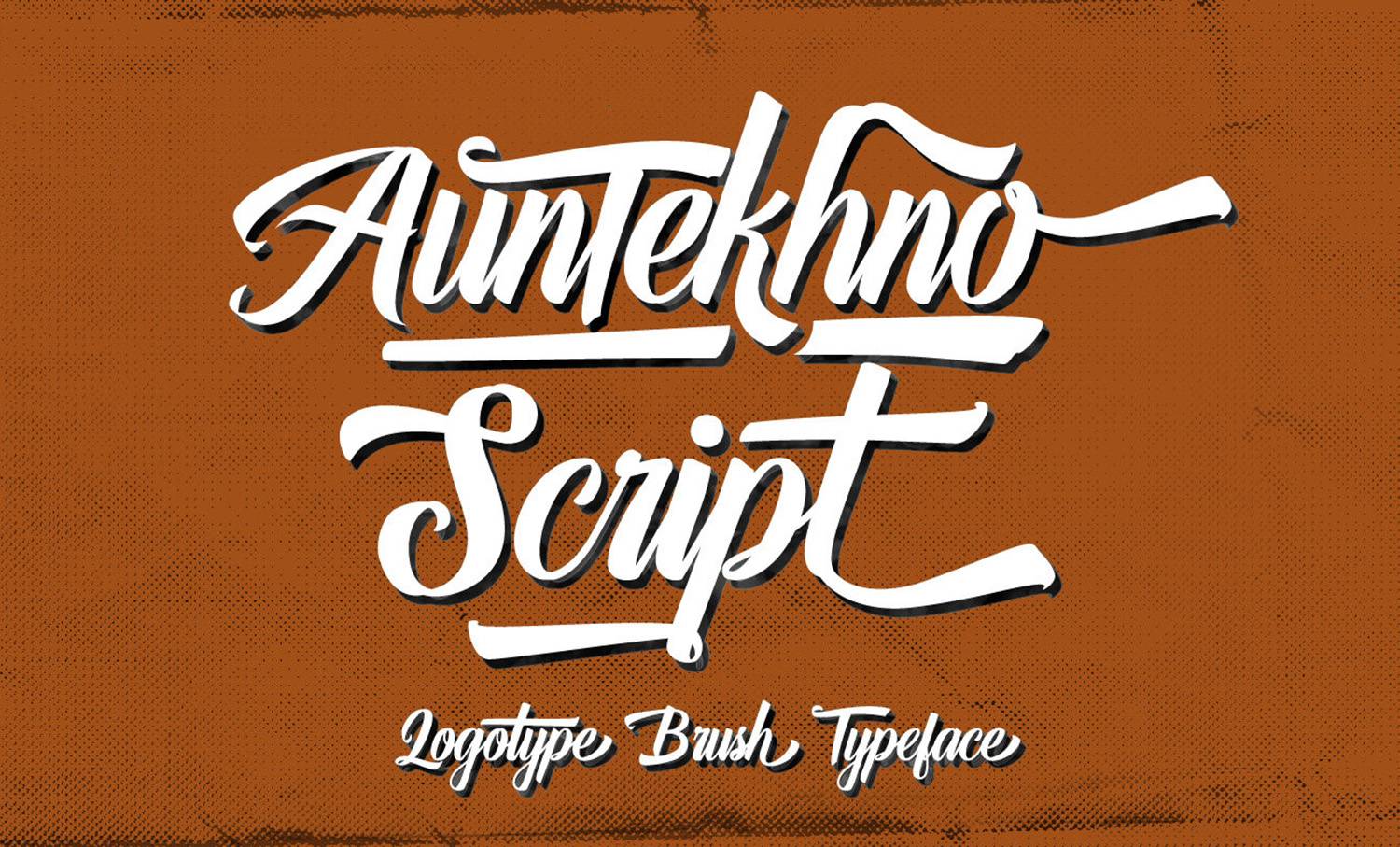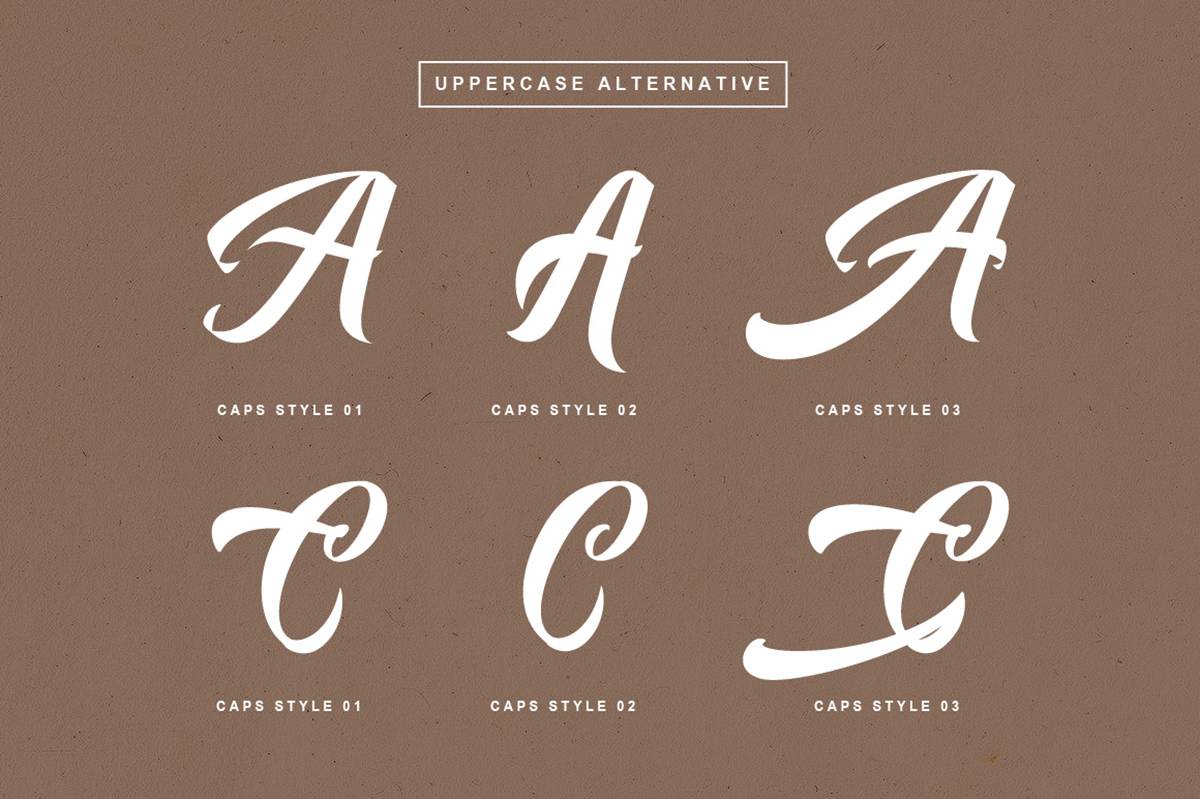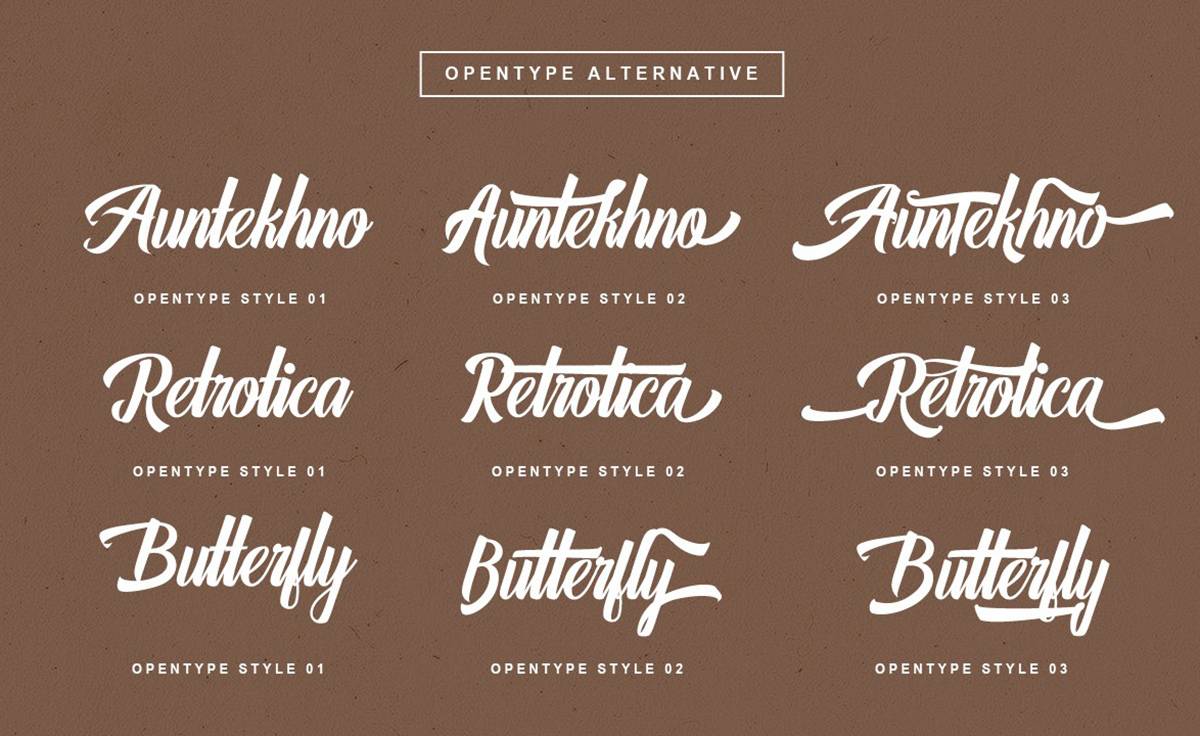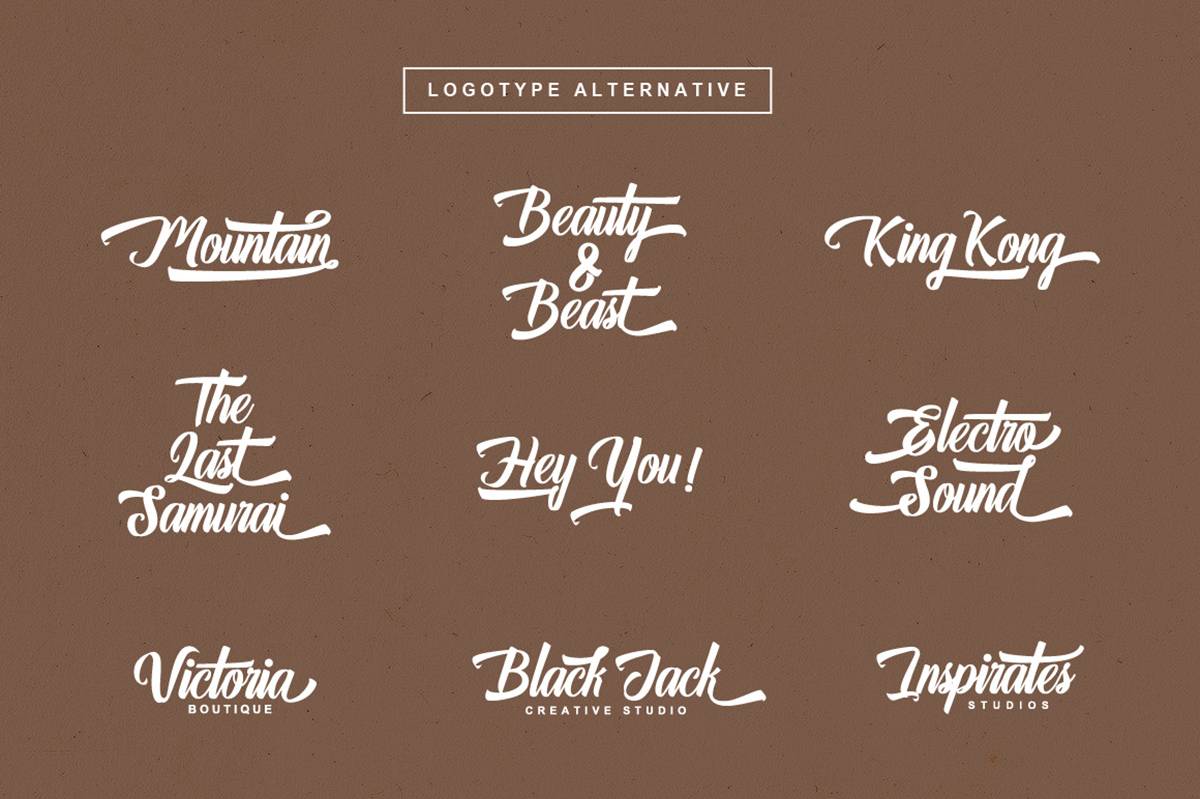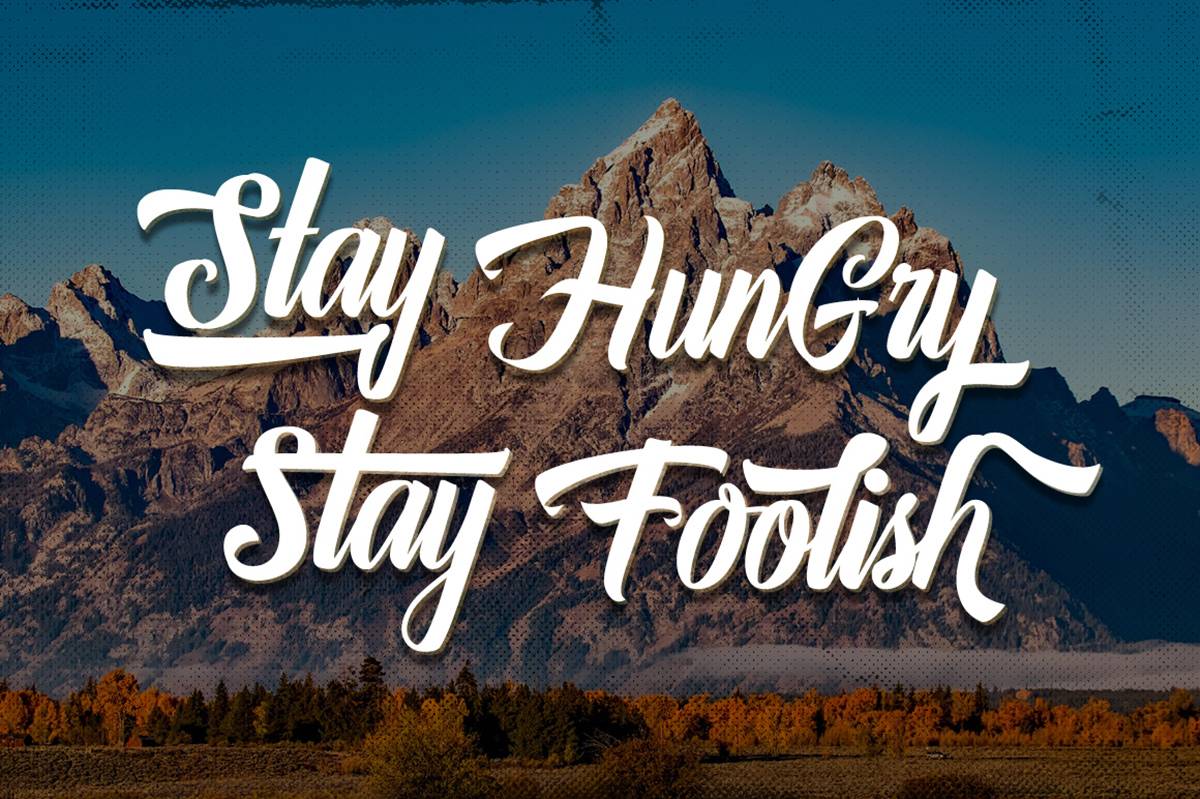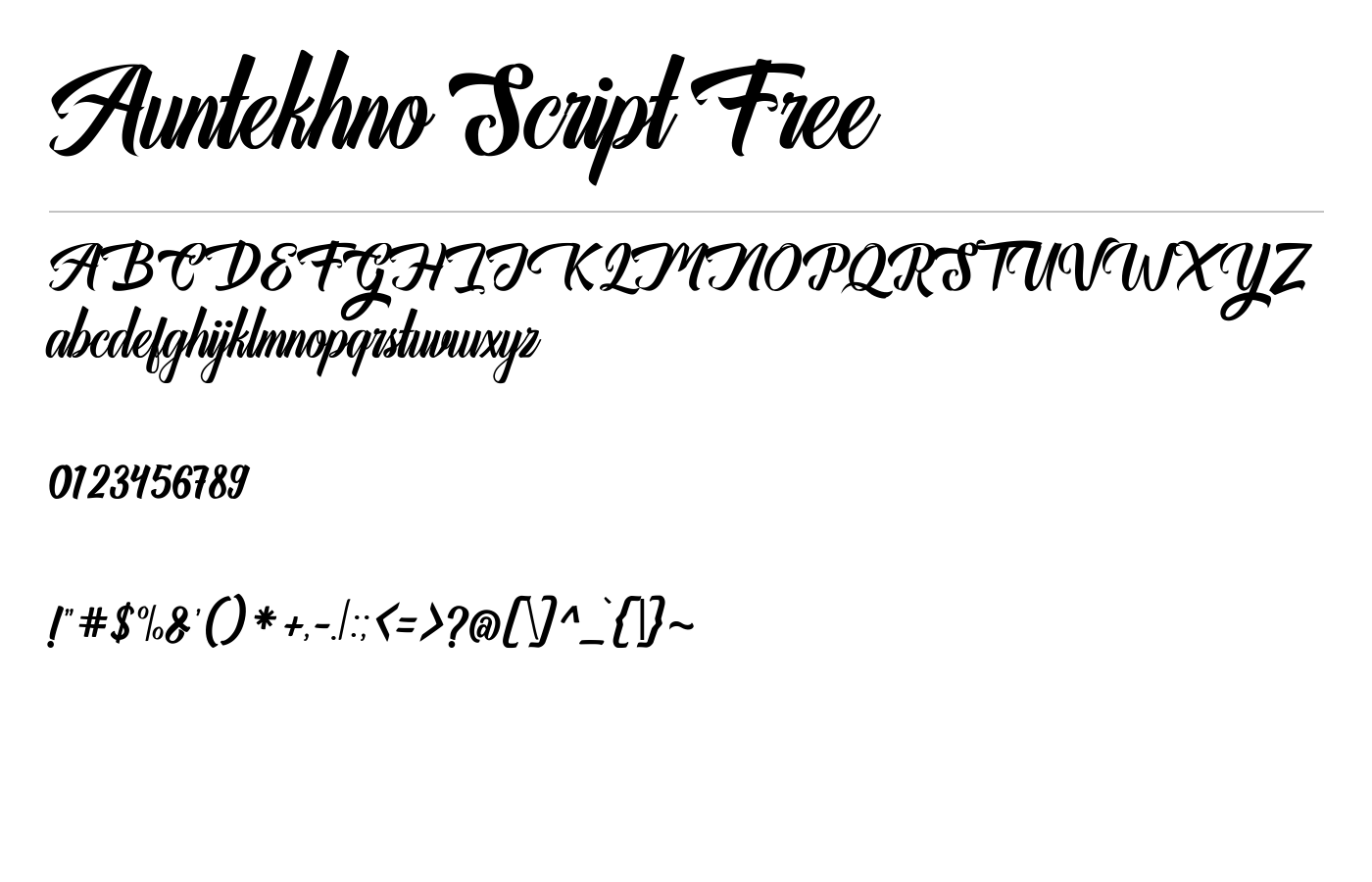
Auntekhno Script is a bold and elegant script font characterized by its flowing, handwritten style with moderate contrast between thick and thin strokes. It conveys a modern yet classic feel with smooth curves and a slightly condensed form, making it suitable for stylish logos, invitations, and branding that aims for a sophisticated, artistic touch. This font works well in display contexts where a personal, expressive, and refined look is desired.
Auntekhno Script Font
About Auntekhno Script Font